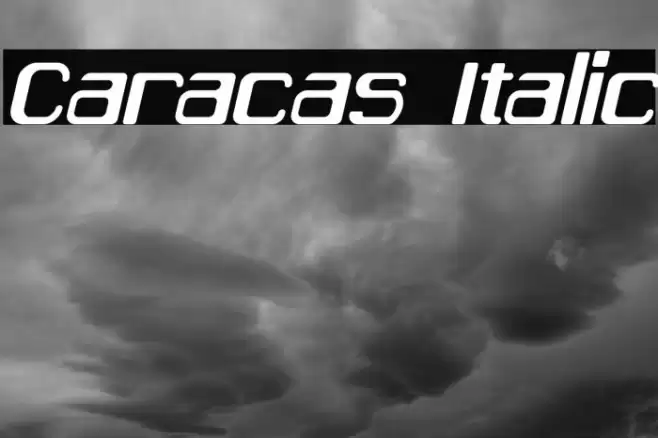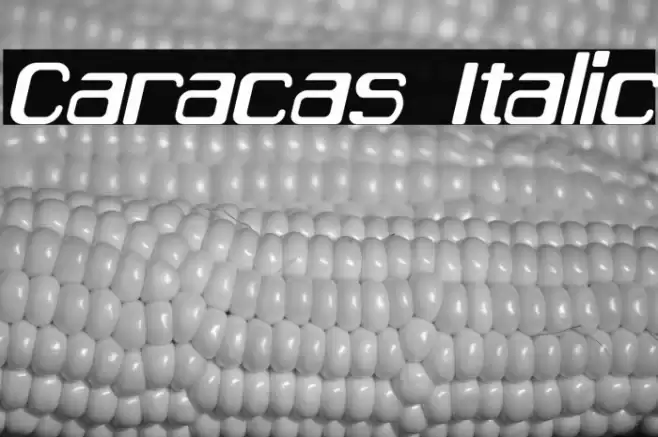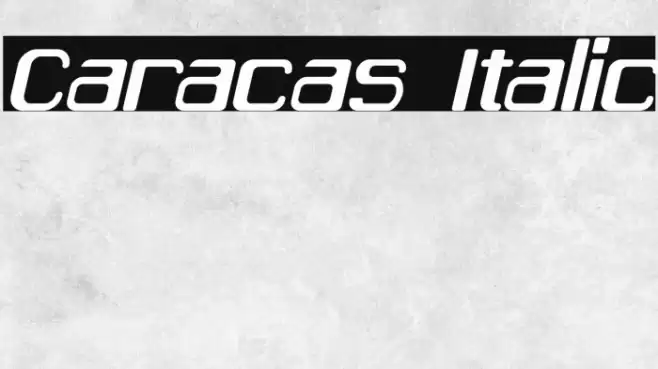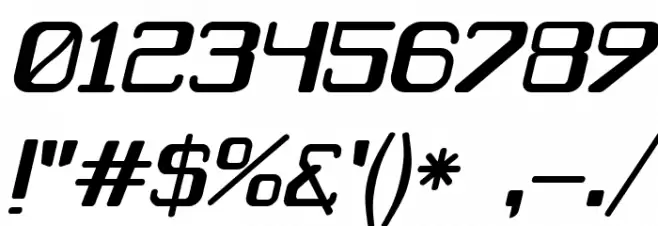
Caracas Italic Font
Caracas Italic Description
This font features a sleek, italicized design with a modern and dynamic appearance. The characters are slightly slanted, giving a sense of motion and energy. The strokes are consistent in weight, providing a uniform look across all characters. The font maintains a clean and professional aesthetic, making it suitable for various applications. The uppercase and lowercase letters are well-proportioned, and the numerals are clear and easy to read. Special characters are included, enhancing its versatility for different uses.
A modern, italicized font with a sleek and dynamic style from Uncategorized fonts.
- Proposed Projects: Ideal for branding, advertising, sports-related designs, and modern web design.
- Use Case: Headlines, Logos, Advertising